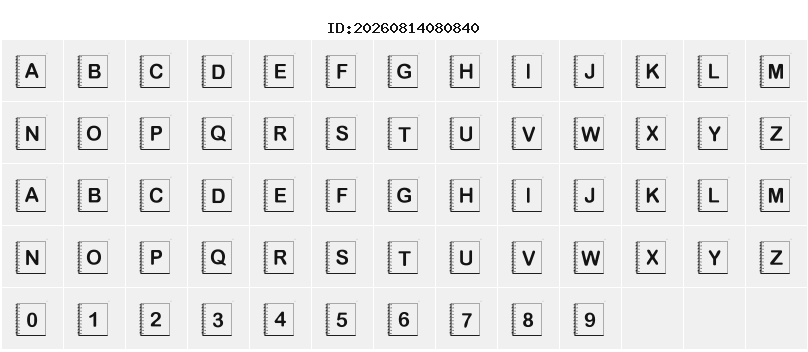
About Summers Notebook.ttf
Summers Notebook.ttf is a modern, elegant sans-serif font designed for ultimate readability and visual harmony. Perfect for branding, headlines, web design, and print materials.